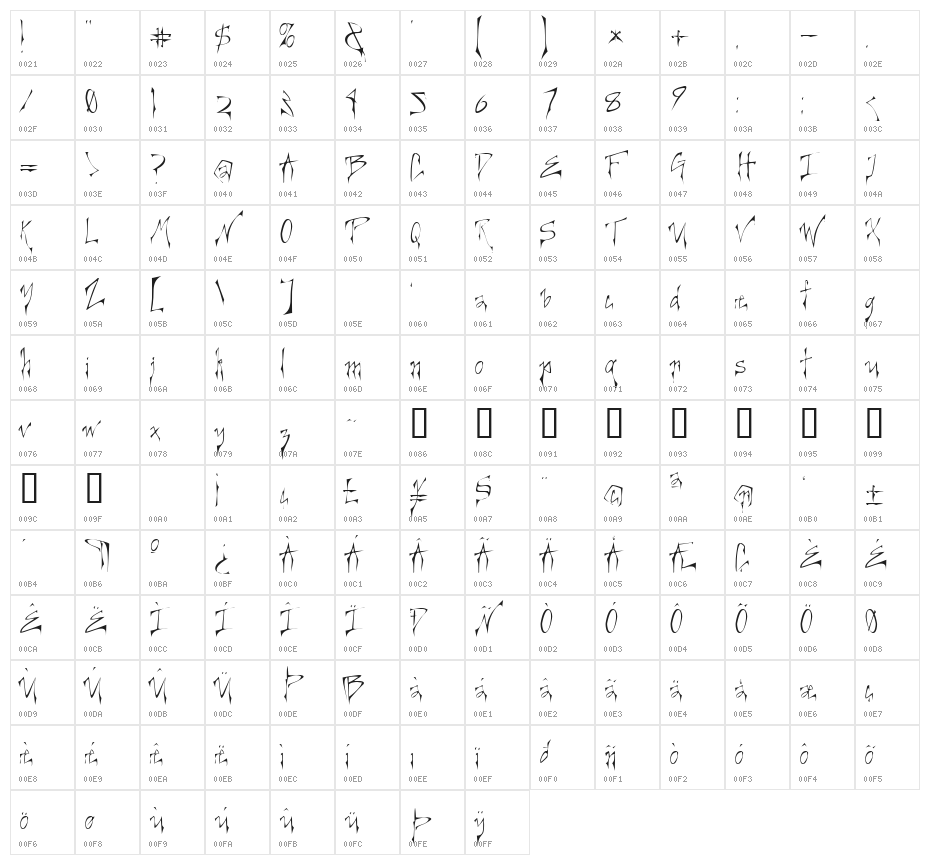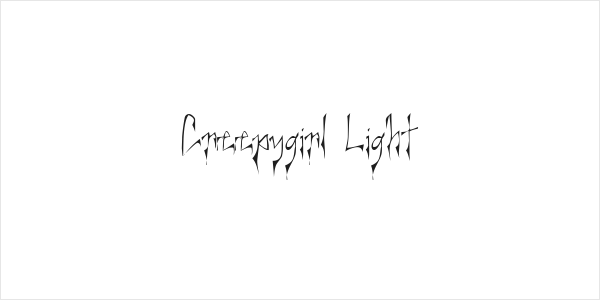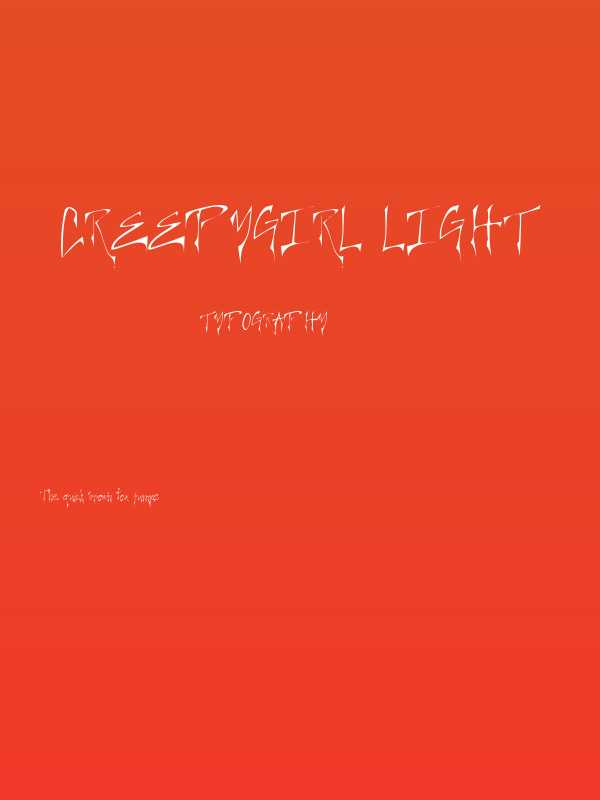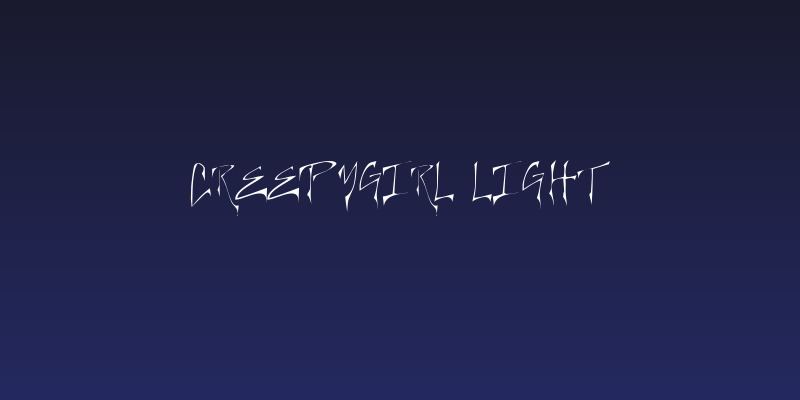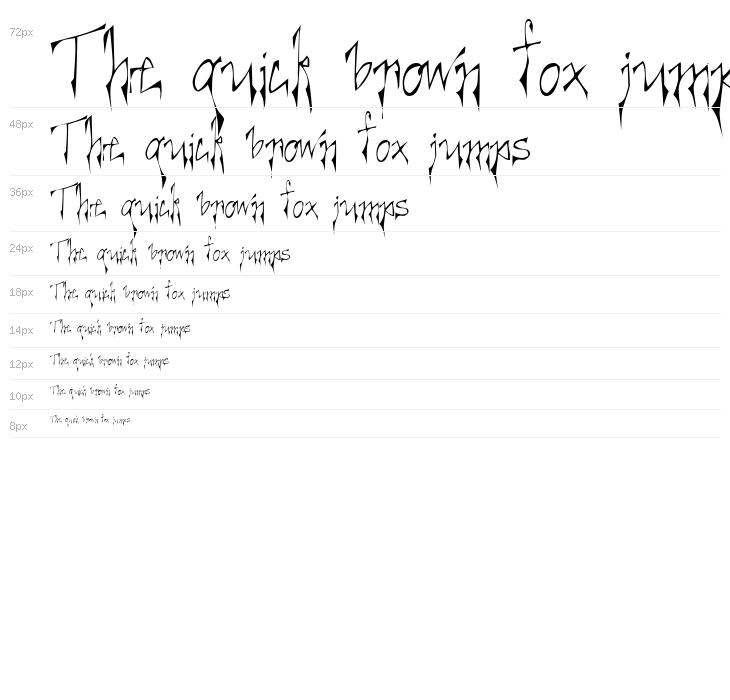
Creepygirl Light Font
Creepygirl Light Description
This font features a distinctive, edgy design with sharp, angular strokes that give it a haunting and mysterious appearance. The characters are elongated and pointed, resembling thorns or spikes, which adds to its eerie aesthetic. The uppercase and lowercase letters maintain a consistent style, with each character exhibiting unique, jagged edges that create a sense of movement and tension. The numbers and special characters follow the same design principles, ensuring a cohesive look across all elements. This font's unique style makes it particularly suitable for projects that require a dramatic and unconventional typeface.
| Proposed Projects | Ideal for horror-themed designs, Halloween posters, edgy branding, and album covers. |